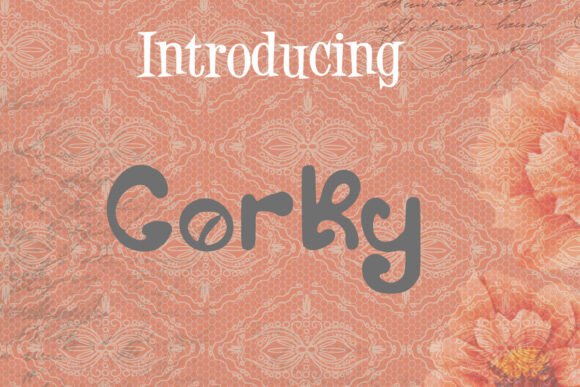
Unlock Your Creativity with Corky Display Font: The Ultimate Design Chameleon
Are you on the hunt for a font that can elevate your designs, add a dash of personality to your projects, and engage your audience like never before? Look no further than the dynamic Corky Display Font. This versatile design asset is perfect for a myriad of creative applications, making it an indispensable tool for designers and crafters alike. In this article, we’ll dive into the world of Corky Display Font, exploring its uses, benefits, and the endless possibilities it offers for enhancing your creative work.
A Font for All Seasons: Versatility at Its Best
Corky Display Font is not just any ordinary font; it’s a design chameleon that can adapt to various creative needs. Its unique style and charm make it an excellent choice for a wide range of projects. Whether you’re working on t-shirt designs, sticker creations, branding materials, or glossy magazine layouts, Corky Display Font can add that special touch that sets your work apart. Its versatility is one of its most compelling features, allowing designers to experiment with different styles and applications.
Elevate Your Designs with Corky Display Font
So, what makes Corky Display Font an ideal choice for your design projects? Here are a few reasons why it’s becoming a favorite among designers and crafters:
- T-Shirt and Sticker Designs: Add a unique and eye-catching element to your apparel and sticker designs with Corky Display Font. Its dynamic style ensures your creations stand out.
- Branding: Inject personality into your brand’s visual identity. Corky Display Font can help you create memorable logos, packaging, and marketing materials.
- Magazine Layouts: Bring a touch of elegance and sophistication to your glossy magazine layouts. Corky Display Font is perfect for headings, titles, and emphasis text.
- SVG Files and Greeting Cards: Its compatibility with SVG files makes it a great choice for crafters working with cutting machines like Cricut. Create stunning greeting cards that speak to the recipient.
- Posters and Social Media: Whether you’re designing vibrant posters or updating your social media presence, Corky Display Font can add a stylish and engaging touch to your digital content.
Why Choose Corky Display Font?
Corky Display Font is more than just a design element; it’s a way to communicate your creativity and engage your audience. Here are some benefits of incorporating Corky Display Font into your projects:
- Uniqueness: Stand out in a crowded design space with a font that is both unique and memorable.
- Versatility: Use it across various projects and platforms, from print to digital.
- Ease of Use: Designed to be user-friendly, Corky Display Font can be easily integrated into your design workflow.
- Engagement: Capture your audience’s attention with a font that tells a story and adds personality to your designs.
Corky Display Font is a dynamic and versatile design asset that can elevate your creative projects to new heights. Its unique style, compatibility with various applications, and ease of use make it an excellent choice for designers and crafters looking to add a touch of personality to their work. Whether you’re working on t-shirt designs, branding materials, magazine layouts, or digital content, Corky Display Font is sure to enhance your creativity, engage your audience, and set your work apart. So, why wait? Embrace the possibilities with Corky Display Font and watch your designs come to life like never before.